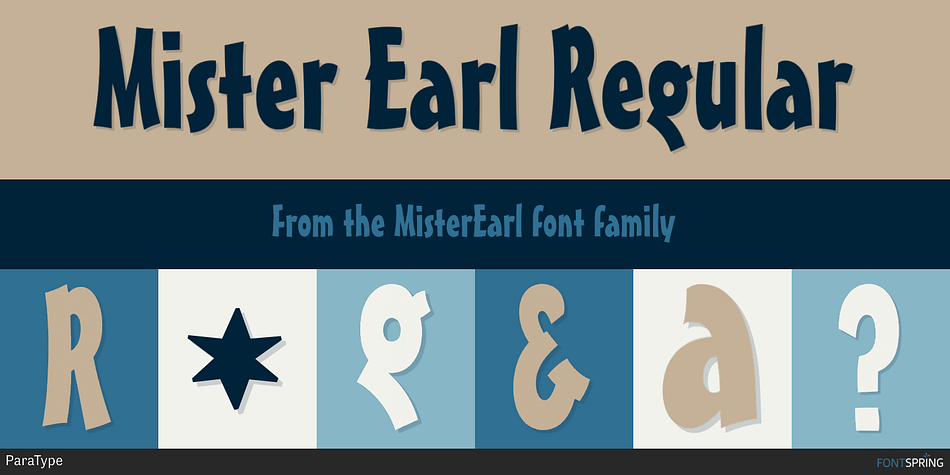
Mister Earl Regular
Designed by Natalia Vasilyeva, MisterEarl is a hand drawn font published by ParaType.
Mister Earl was designed for Bitstream in 1991 by Jennifer Maestre. A narrow decorative sans serif. Cyrillic version was developed in 2001 by Natalia Vasilyeva. For use in advertising and display typography.
Designer Natalia Vasilyeva